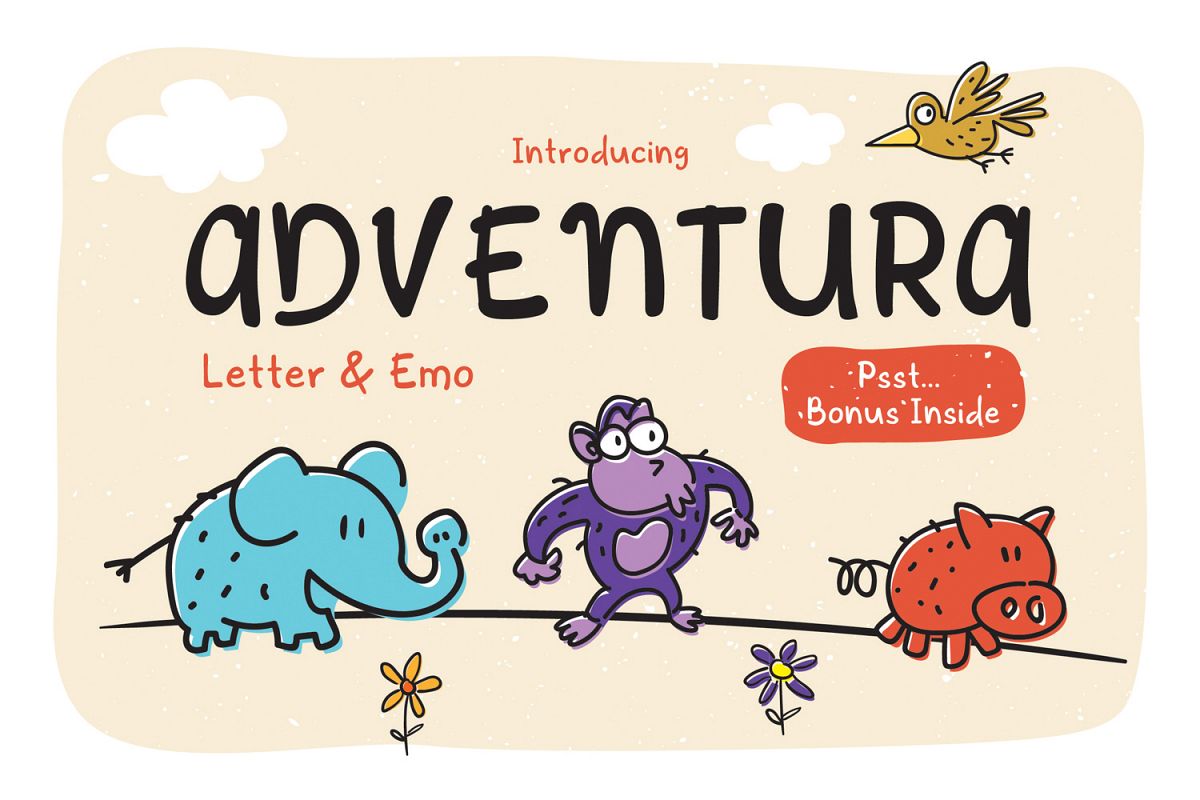
Adventura Letter and Emo
Adventura Letter Emo
Adventura Letter
Adventura Letter & Emo
This hand-written typeface inspired by hand-written letter. Adventura Letter & Emo designed to make your design have more personal touch. Adventura Letter & Emo ideal for logos, handwritten quotes, product packaging and merchandising. The Emo characters in PNG & SVG formats are a welcome bonus with this typeface.File info: